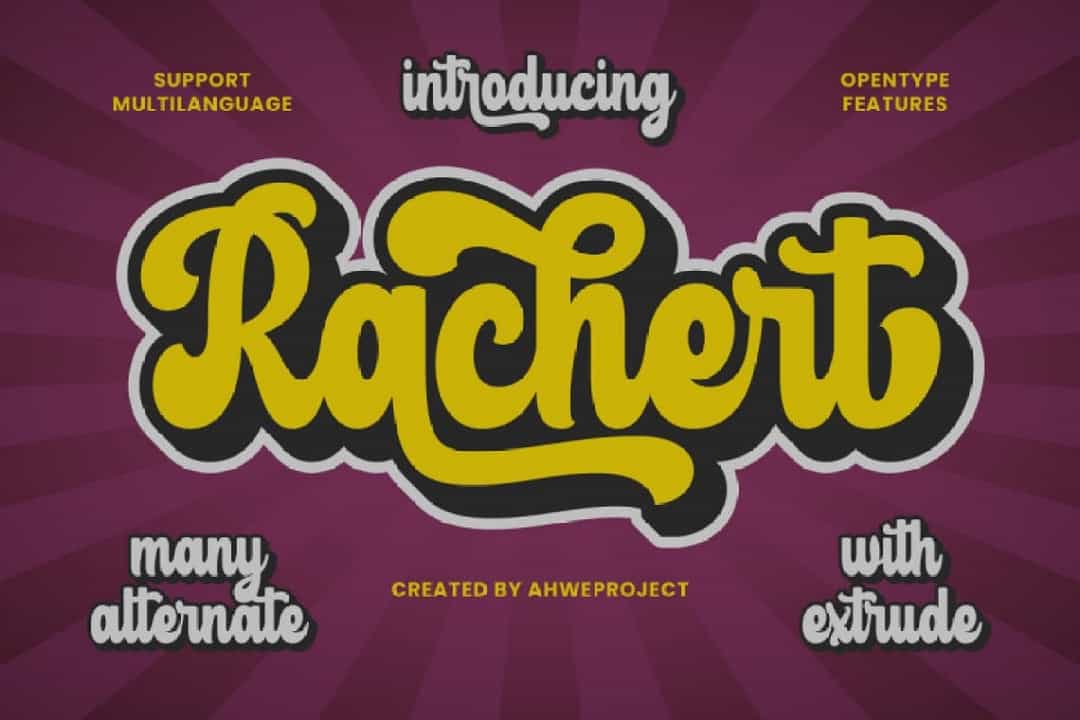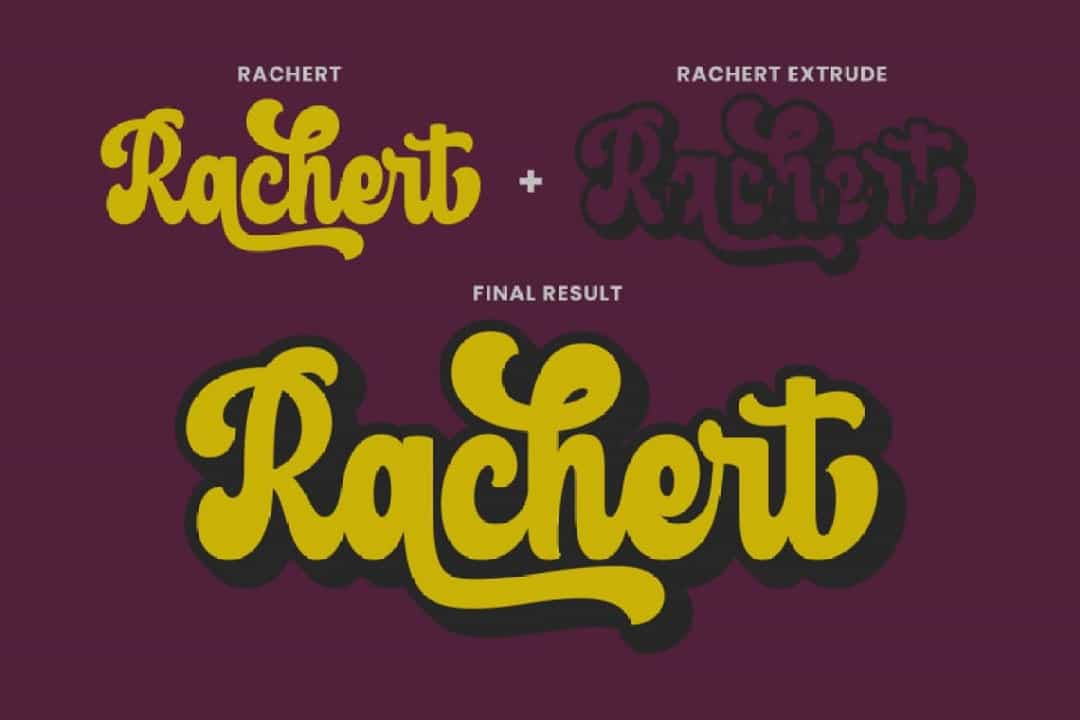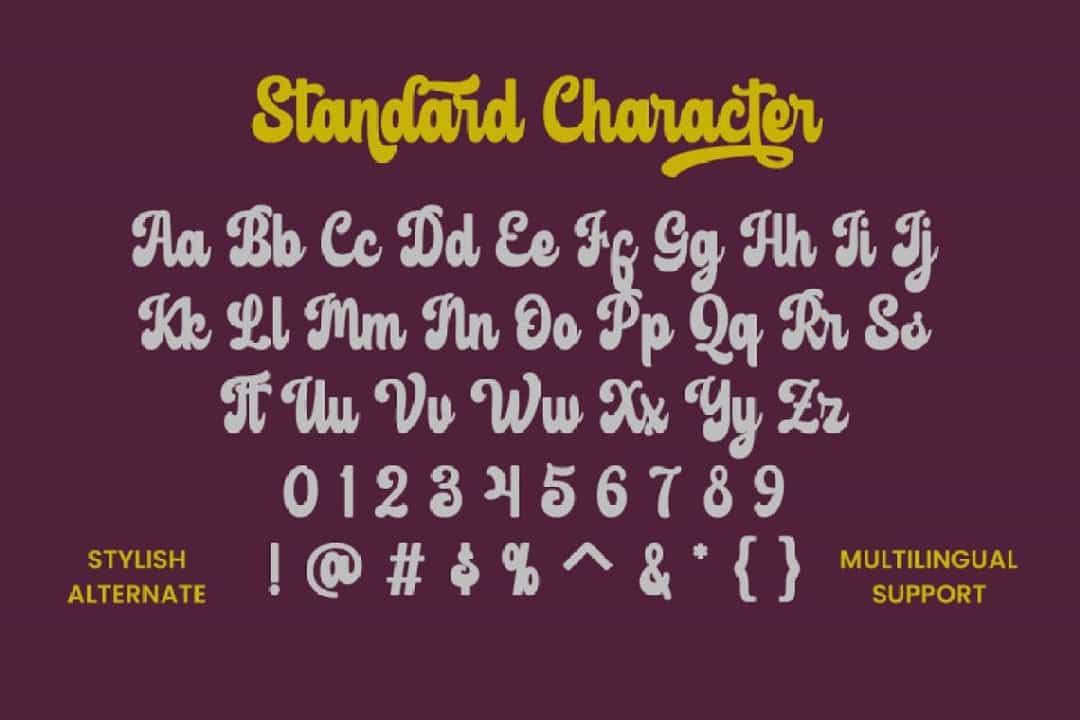
Discover Rachert Font, part of the Retro Script collection—a versatile and unique font perfect for adding a personal touch to your projects. Download it for free and enjoy crafting designs with style, from invitations to social media posts. This font is available exclusively for personal use, giving you the freedom to create without limits. Unlock your creativity with Rachert Font today!
Rachert is an eye-catching retro script font from the 70s. Take note of its distinctive style and design before employing it for wedding invitations, stationery designs, tweets on social networks or anything else! Rachert makes us long for another decade!